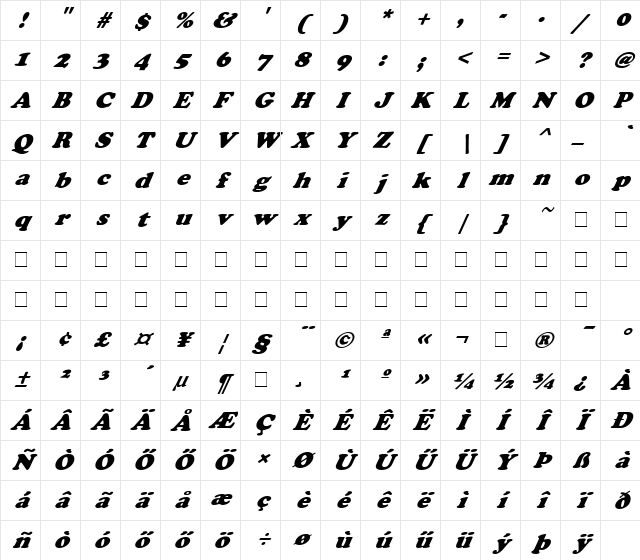
ROMAN4 HU is a composed and adaptable typeface that performs quietly and consistently across a wide range of design contexts. The slanted form adds forward momentum and visual energy.
Pro Tip: Use ROMAN4 HU for emphasis, pull quotes, and subheadings where its slanted energy can add rhythm to the layout.